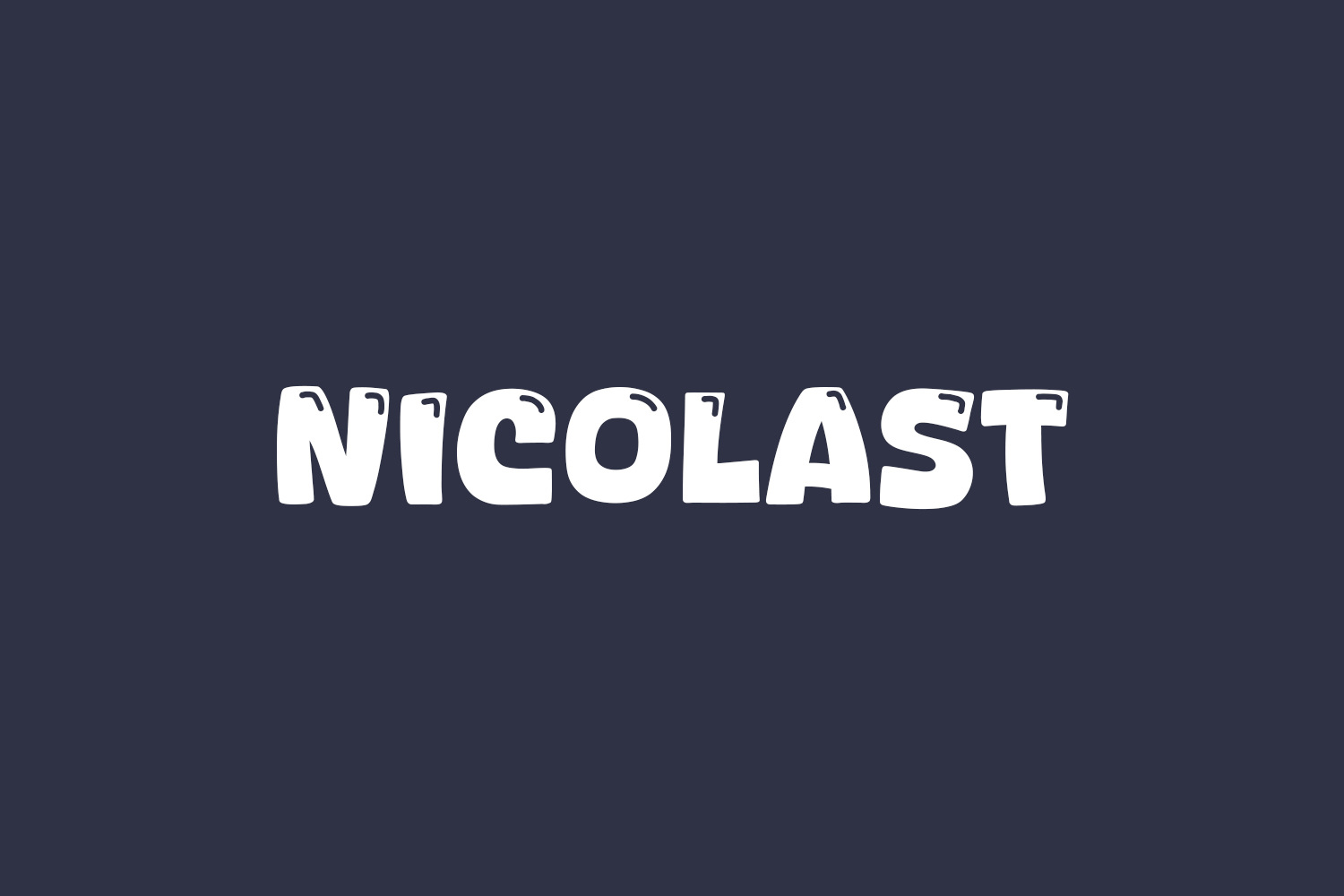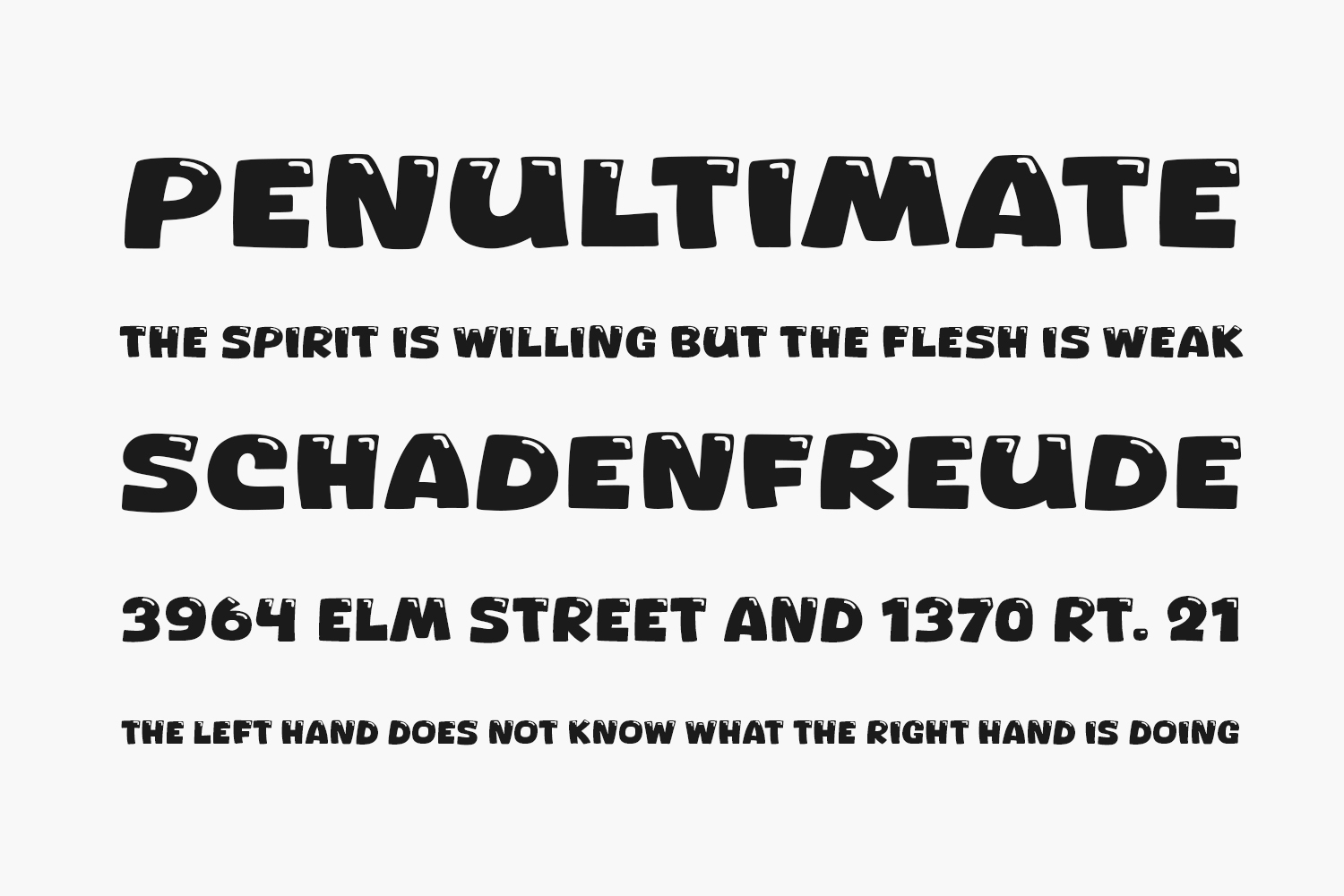
Nicolast Free Font is a chic and stylish display font ideal for posters, logos, magazines, book covers, banners, and beyond! Elevate your designs with this remarkable font and witness its versatility across a wide array of projects. Add a touch of sophistication to your creative endeavors and watch as Nicolast enhances their appeal. Download the font for free if you need it for personal use.